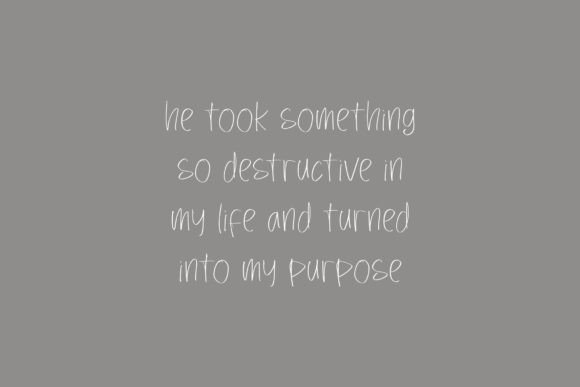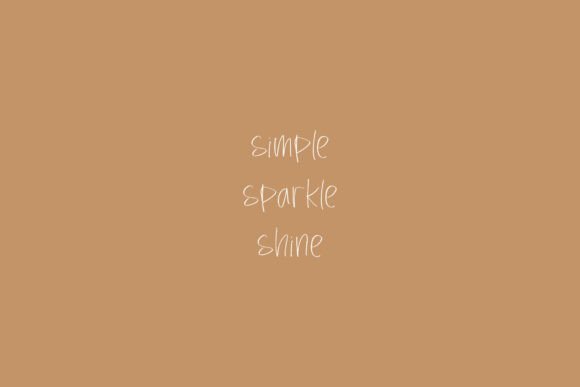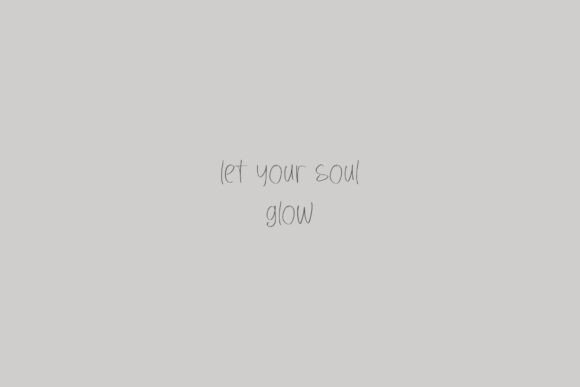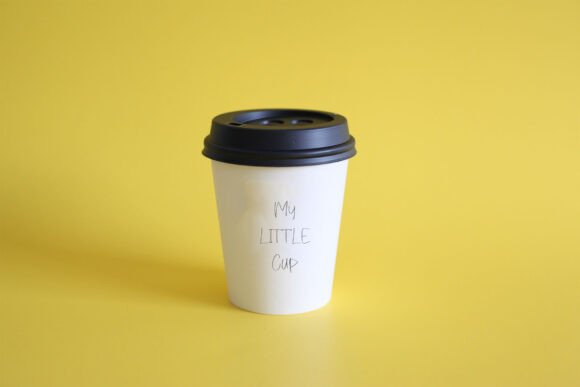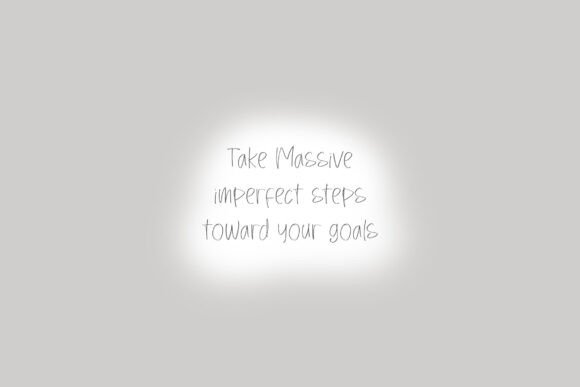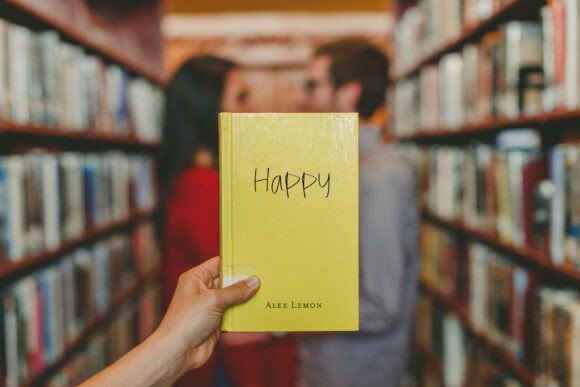
Introduction to Lino Mido Font
Lino Mido is a thin, handwritten font that looks casual and personal.
Its delicate letters give a friendly and warm feel, making it great for notes, invitations, or anything that needs a human touch .